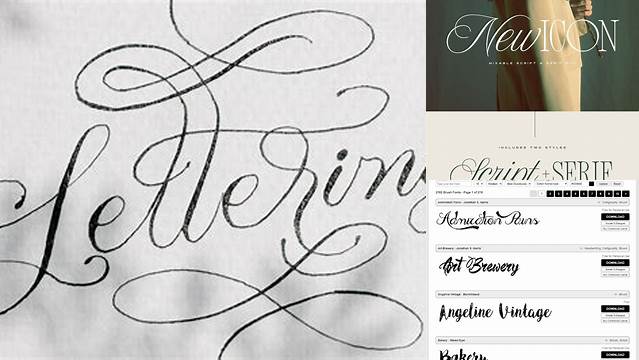
Cursive Fonts: Your Guide To 1001fonts.com
Hey guys! Ever felt like your text is missing that special flair? Like it needs a touch of elegance, a dash of personality, or maybe just a little something… extra? Well, you've stumbled upon the right place! We're diving deep into the captivating universe of cursive fonts, and trust me, it's a journey worth taking. If you are looking for fonts similar to the handwriting, then cursive fonts will be the perfect choice. Cursive fonts are designed to emulate the flowing strokes of handwriting, adding a personal and sophisticated touch to any design. Whether you're crafting a wedding invitation, designing a logo, or just want to make your text stand out, cursive fonts can be a game-changer.
What Makes Cursive Fonts So Special?
So, what exactly makes cursive fonts so darn special? It's more than just fancy swirls and loops, guys. Cursive fonts carry a certain emotional weight. They evoke feelings of warmth, authenticity, and even nostalgia. Think about it: handwriting is personal. It's unique to each individual, reflecting their character and mood. Cursive fonts tap into that connection, bringing a human touch to the digital world. This connection makes them perfect for projects where you want to create a feeling of intimacy and connection. For instance, a handwritten-style cursive font on a thank you card makes it feel more genuine and heartfelt. Moreover, cursive fonts are incredibly versatile. From elegant and formal scripts to playful and whimsical styles, there's a cursive font for every occasion. You can use them to add a touch of sophistication to formal invitations, inject personality into branding materials, or even create eye-catching headlines. The key is to choose a font that matches the tone and style of your project. Some of the most common use cases include wedding invitations, logos, and greeting cards. The flowing lines of cursive fonts add an elegant and romantic touch to wedding invitations, making them feel extra special. For logos, a well-chosen cursive font can help a brand stand out and convey a sense of sophistication and personality. And when it comes to greeting cards, cursive fonts add a personal and heartfelt touch that printed fonts simply can't match. So, the next time you're looking to add a touch of personality and elegance to your design, consider the power of cursive fonts. They might just be the secret ingredient you've been looking for.
Exploring the Vast World of Cursive Fonts on 1001fonts.com
Cursive Fonts: More Than Just Pretty Letters
Cursive fonts are more than just aesthetically pleasing; they can also significantly impact your design's message and overall feel. A carefully chosen cursive font can convey a sense of luxury, creativity, or even playfulness. It's all about understanding the psychology of fonts and how they communicate different emotions. For example, a flowing, elegant script font might be perfect for a wedding invitation, conveying romance and sophistication. On the other hand, a bold, slightly messy cursive font could be ideal for a logo aimed at a younger audience, suggesting energy and creativity. The key is to consider your target audience and the message you want to convey. Think about the overall tone and style of your project and choose a font that complements it. If you're designing a website for a high-end fashion brand, a sophisticated script font might be a great choice. But if you're creating a logo for a children's bookstore, a playful, hand-drawn cursive font might be more appropriate. It's also important to think about readability. While cursive fonts are beautiful, some can be difficult to read, especially in large blocks of text. Choose a font that is both visually appealing and easy to understand. If you're using a decorative cursive font for a headline, make sure the body text is in a more legible font. In addition to aesthetics and readability, cursive fonts can also help you create a distinctive brand identity. A unique and memorable cursive font can make your brand stand out from the crowd and create a lasting impression. Just think of famous brands that use cursive fonts in their logos, like Coca-Cola or Disney. Their logos are instantly recognizable, thanks in part to their distinctive typography. When choosing a cursive font for your brand, consider your brand values and personality. Do you want to convey a sense of elegance, playfulness, or sophistication? The right font can help you communicate these qualities effectively.
Pro Tips for Using Cursive Fonts Like a Pro
Alright, guys, let's get down to the nitty-gritty! Using cursive fonts effectively requires a bit of finesse. Here are some pro tips to help you nail it every time: First off, less is more. Cursive fonts are attention-grabbing, so you don't want to overuse them. Stick to using them for headings, logos, or short bursts of text. Overusing cursive fonts can make your design look cluttered and overwhelming. Think of cursive fonts as the spice in your design – a little goes a long way. Instead of using cursive fonts throughout your entire website or document, focus on using them strategically to highlight key elements. For example, you could use a cursive font for your website's logo or for the headings of your blog posts. This will add a touch of elegance and personality without overwhelming the reader. Another key tip is to pair cursive fonts wisely. Not all fonts play nicely together! A good rule of thumb is to combine a cursive font with a clean, sans-serif font for body text. This creates a visually appealing contrast and ensures readability. Imagine pairing a delicate script font with a bold, modern sans-serif font – the combination can be stunning! Experiment with different font pairings to see what works best for your design. You can use online tools to help you find complementary fonts, or simply try out different combinations in your design software. The right font pairing can elevate your design and make it more visually appealing. And speaking of readability, make sure your chosen cursive font is legible. Some overly ornate fonts can be difficult to read, especially at smaller sizes. Always prioritize clarity over fanciness. Test your font at different sizes and in different contexts to ensure it remains legible. If your cursive font is hard to read, it will detract from your message. Choose a font that strikes the right balance between style and readability. Finally, pay attention to kerning and spacing. Cursive fonts often have unique letterforms that require careful attention to spacing. Adjust the kerning (the space between individual letters) to ensure a smooth and flowing appearance. Proper kerning can make a big difference in the overall look and feel of your cursive font. If the letters are too close together, the font will look cramped and difficult to read. If they're too far apart, the font will look disjointed and awkward. Take the time to adjust the kerning until the spacing looks just right.
Unleash Your Creativity with Cursive Fonts!
So there you have it, guys! A whirlwind tour of the wonderful world of cursive fonts. From their emotional impact to their versatility and the treasure trove available on 1001fonts.com, we've covered a lot of ground. Now it's your turn to unleash your creativity and start experimenting! Remember, the best way to master the art of using cursive fonts is to play around and see what works for you. Don't be afraid to try different styles, pairings, and applications. The more you experiment, the better you'll become at using cursive fonts to their full potential. So, dive into 1001fonts.com, explore their vast collection, and find the perfect cursive font to bring your next project to life. Whether you're designing a logo, creating a wedding invitation, or simply adding a personal touch to your website, cursive fonts can help you make a statement. They're a powerful tool for conveying emotions, creating a distinct brand identity, and adding a touch of elegance and personality to your designs. And remember, guys, have fun with it! Design should be an enjoyable process. Don't get bogged down in the rules – let your creativity flow and see where it takes you. With a little practice and experimentation, you'll be using cursive fonts like a pro in no time. The possibilities are endless, so go out there and create something amazing! And if you are feeling stuck for inspiration, try looking at other designs that use cursive fonts. Pay attention to how the fonts are used, what other fonts they are paired with, and the overall effect they create. You can also find inspiration in everyday life – look at signage, packaging, and even handwriting for ideas. The more you expose yourself to different styles and applications of cursive fonts, the better you'll become at using them effectively. So, get inspired, get creative, and get designing!